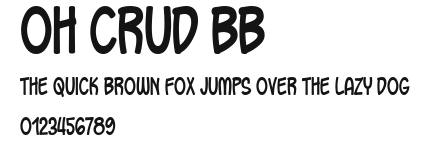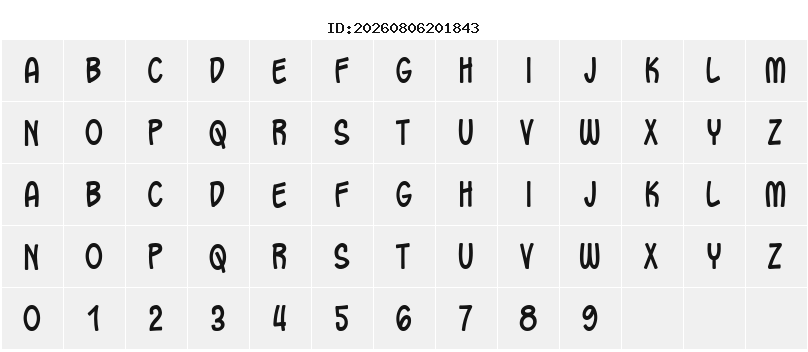
• Font Name: Oh Crud BB
• Full Font Name: Oh Crud BB
• Copyright: © 2004 Nate Piekos. www.blambot.com
About Oh Crud BB.ttf
Oh Crud BB.ttf is a modern, elegant sans-serif font designed for ultimate readability and visual harmony. Perfect for branding, headlines, web design, and print materials.